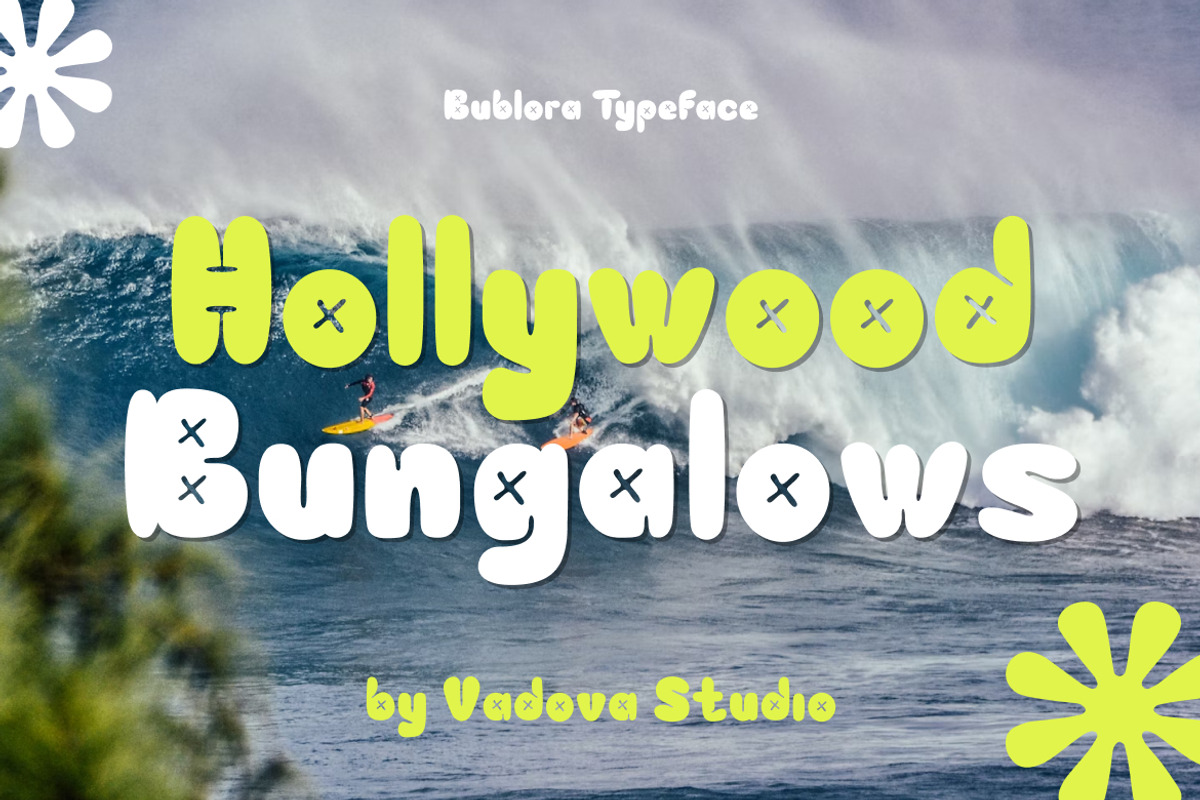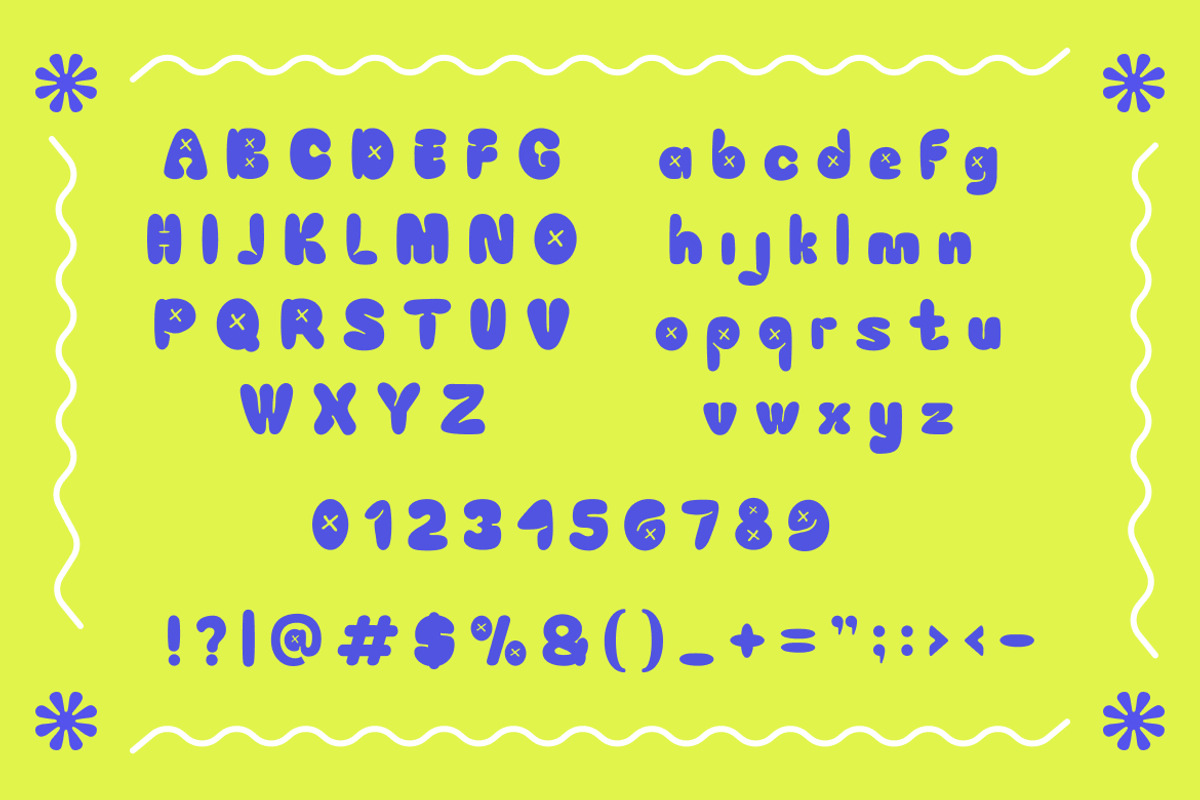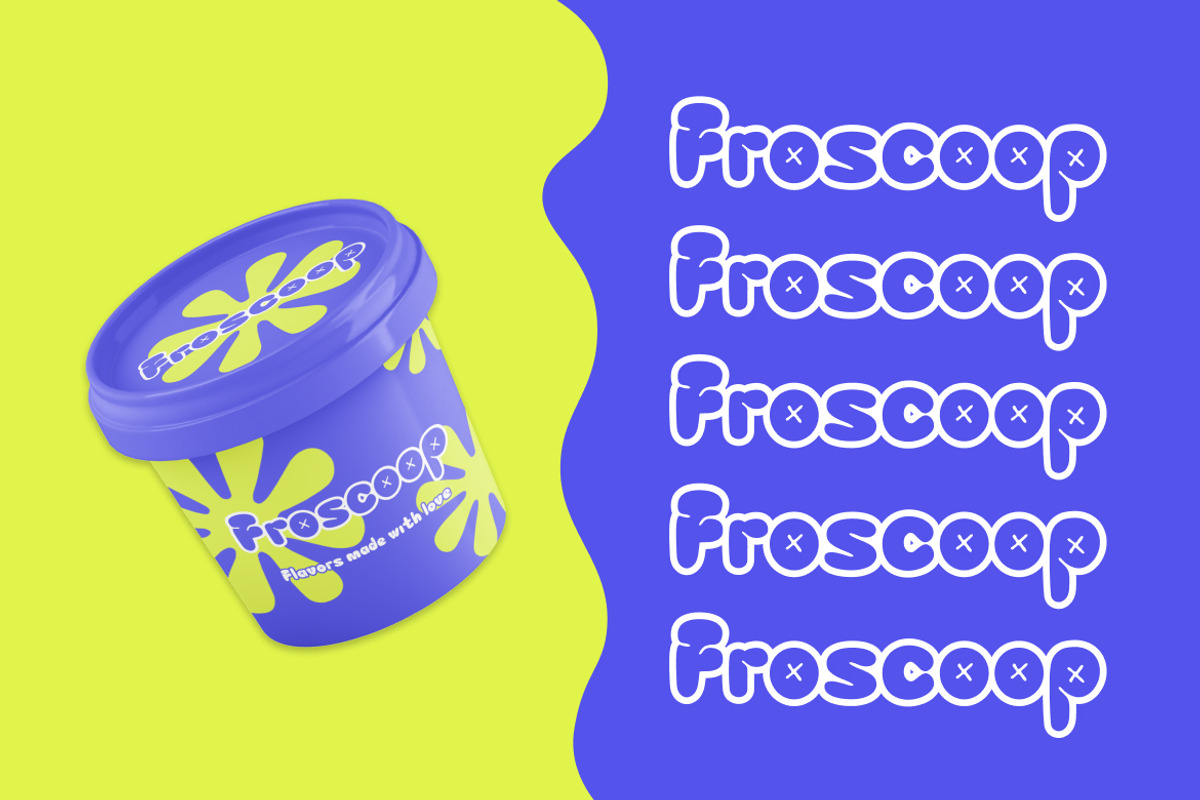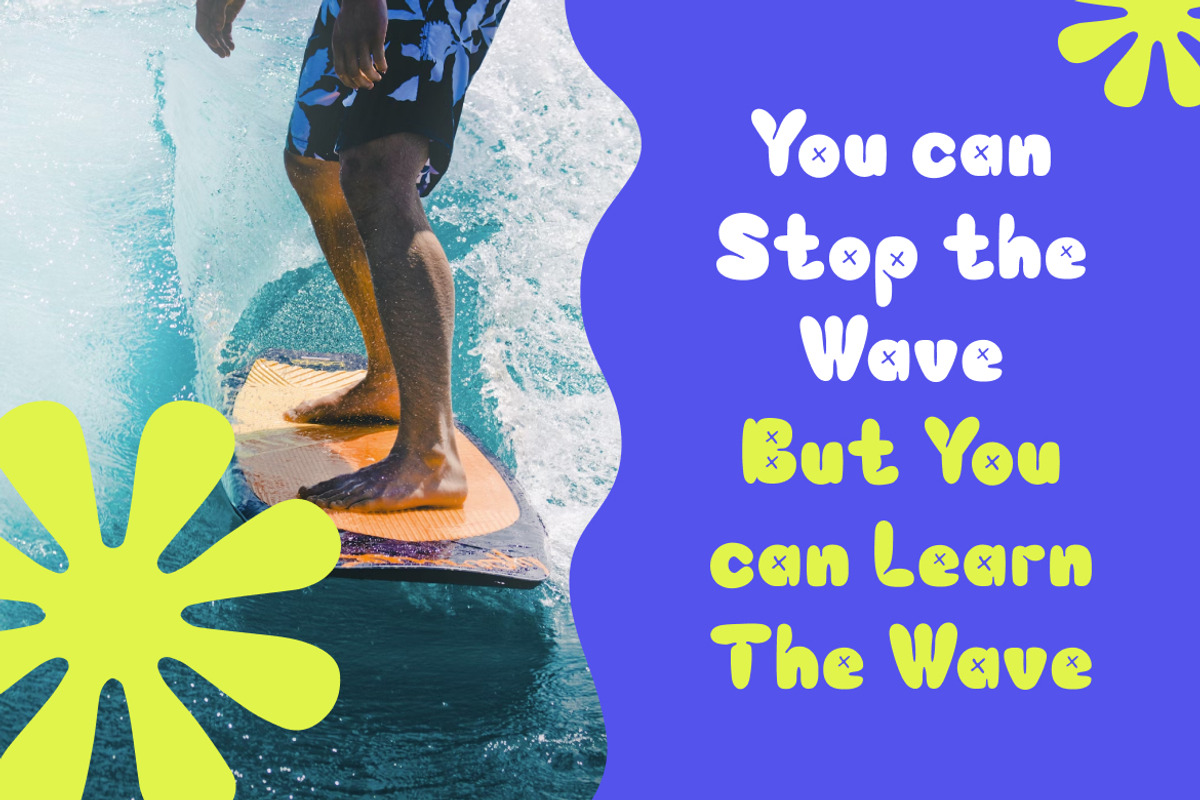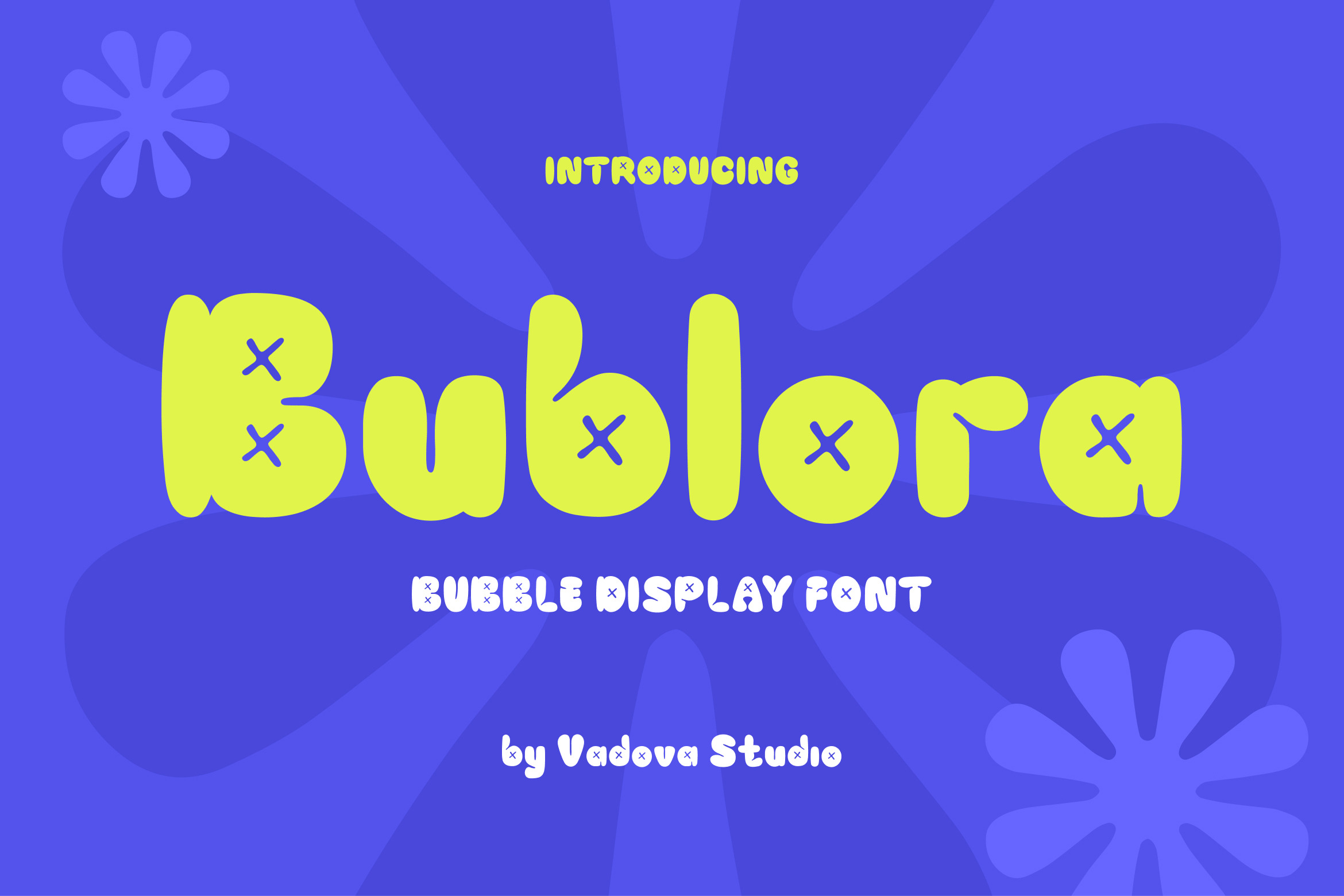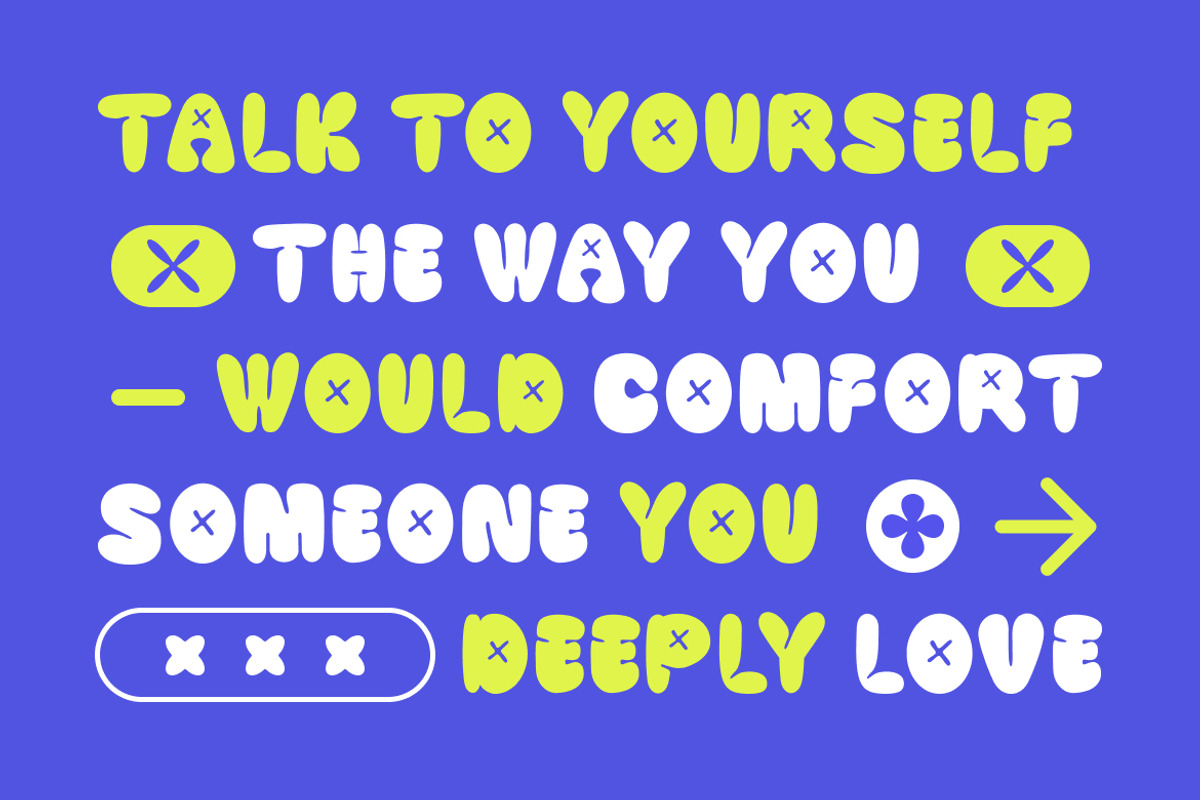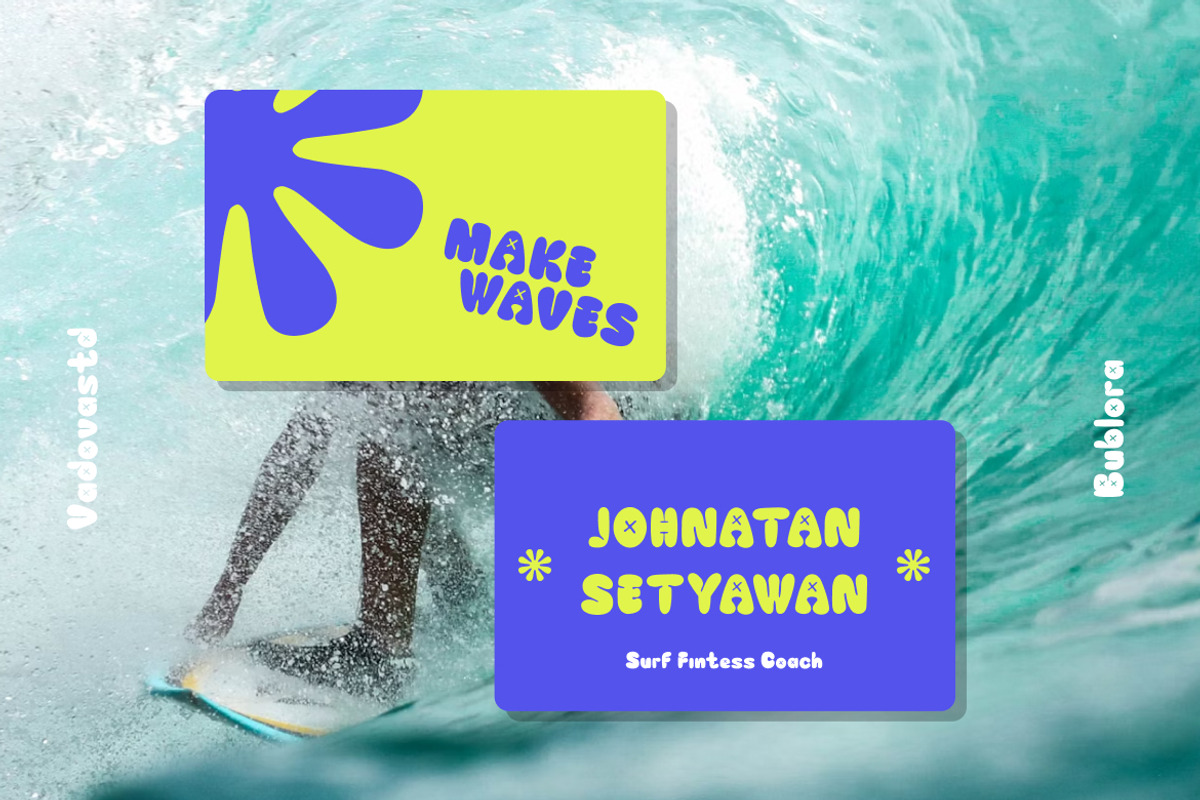
Bublora – Bubble Display Font
Bublora is a bubbly display typeface that radiates joy and energy. Designed with soft, rounded forms and playful rhythm, it brings a cheerful, cartoon-inspired vibe to any creative layout. The thick strokes and inflated curves make each letter pop, while the subtle irregularities add a hand-crafted, friendly tone.
Perfect for fun branding, children’s media, packaging, and playful headlines, Bublora delivers instant charm and visual warmth. It’s designed to stand out in colorful compositions and casual modern layouts.
Font Highlights
Bubble-style display font
Uppercase & lowercase letters
Numerals and punctuation
Rounded, inflated forms with bold structure
Ideal for playful branding, posters, and packaging
Why Designers Love Bublora
Fun & Playful Look – Instantly adds personality to any design.
Bold Readability – Thick curves and rounded balance for easy legibility.
Friendly Character – Soft edges and organic flow create approachability.
Creative Versatility – Perfect for kids’ themes, cartoons, and modern design projects.
Relevance and Use Cases
Relevance and Use Cases is perfect for children’s products, toy packaging, YouTube thumbnails, cartoon logos, event posters, game titles, social media designs, and lifestyle branding with a joyful tone.